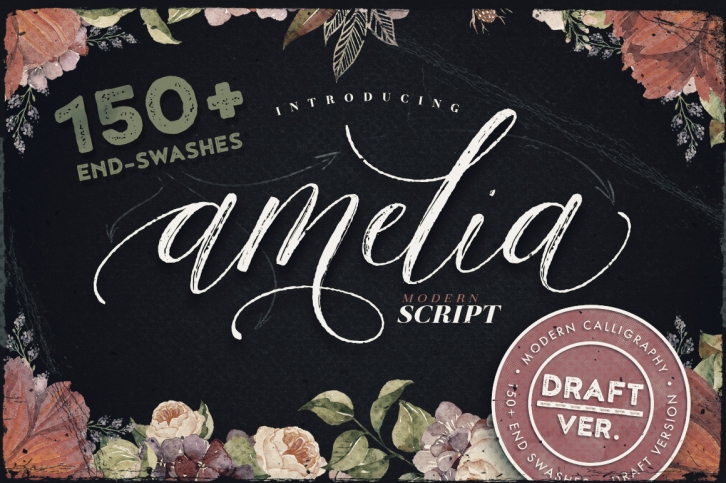
Amelia Script is a trendy and unique font with an authentic style. It was designed by Blessed Print and it's a great choice for creative people who need such a font. It was released on October 18, 2018 and the file size is 9.91 MB. Amelia Script will add an organic vibe to any design idea!